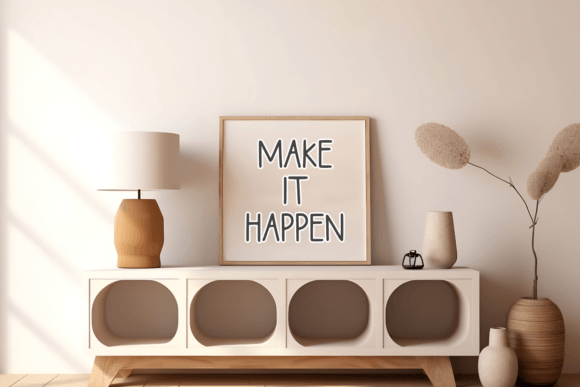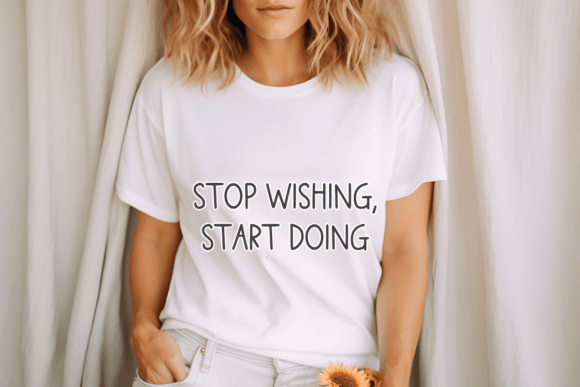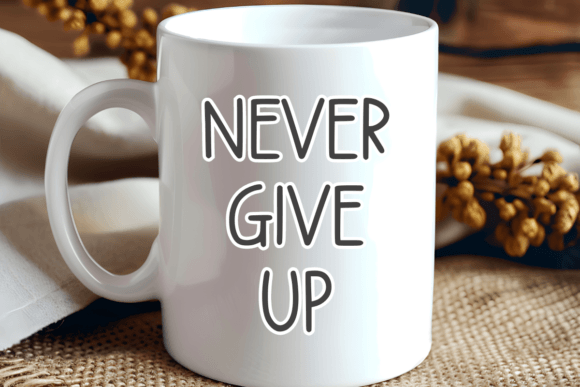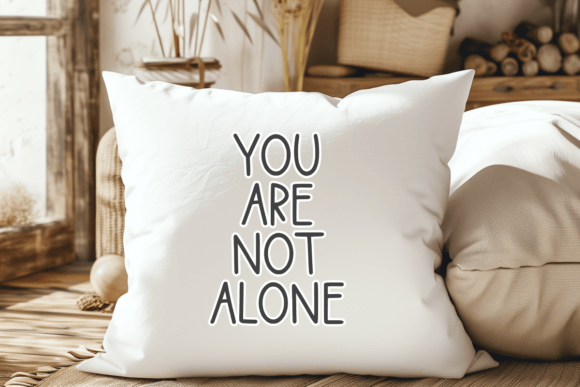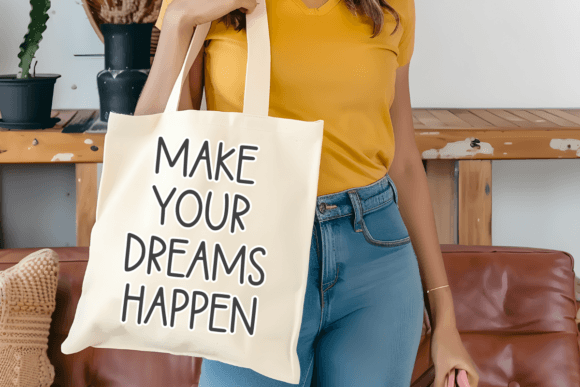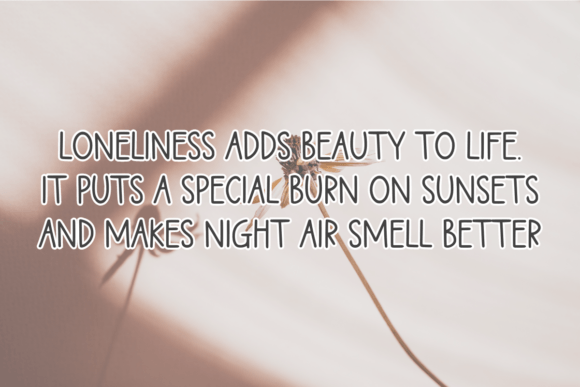
Introduction to Lucky Teacher Font
Lucky Teacher is a playful display font.
Key Features of Lucky Teacher Font
Why Choose Lucky Teacher Font?
Lucky Teacher Font offers exceptional quality and versatility, making it a valuable addition to your design toolkit. Whether you’re creating for personal projects or commercial use, Lucky Teacher Font delivers professional results.